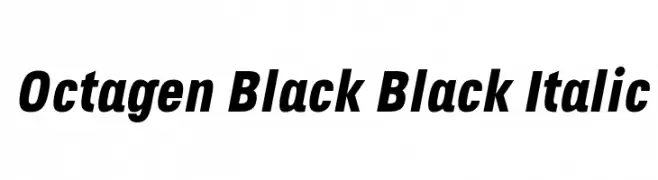
A playful and quirky font with circular dots integrated into each character.
A bold, playful font with rounded characters and unique dot details.
A playful, bubbly font with rounded characters and circular accents.
A playful, outlined font with bold, rounded characters.
A playful, rounded font with a hand-drawn, whimsical style.
A playful, bold typeface with rounded, smooth edges and a whimsical touch.
A playful, rounded font with smooth curves and a friendly appearance.
A bold, modern font with high contrast and geometric influences.
A bold, high-contrast font with angular serifs and smooth curves, perfect for striking headlines.
A bold, geometric font with characters enclosed in rounded squares, offering a modern and structured look.
A bold, geometric font with characters in rounded squares, evoking vintage typewriter keys.
A vintage typewriter-style font with a distressed, authentic appearance.
A bold, expressive handwritten font with dynamic brush strokes.
A modern, artistic font with geometric and organic elements.
A bold and elegant script font with fluid, dynamic strokes.
A bold, modern font with geometric curves and playful elements.
A charming and elegant script font with flowing, cursive letters and decorative flourishes.
A lively and flowing script font with a natural handwritten style.
An elegant cursive script font with flowing, connected letters.
A bold, italic sans-serif font with a dynamic and modern style.
A bold, expressive script font with elegant, flowing cursive letters.
A lively and elegant script font with flowing, cursive letterforms.
A modern sans-serif font with a clean and balanced design.
A delicate, handwritten font with thin, flowing lines and an elegant style.
An elegant and flowing script font with decorative swashes and loops.
An elegant, flowing script font with graceful curves and dynamic contrast.
An elegant, high-contrast cursive font with ornate details.
An elegant, flowing script font with smooth, cursive strokes.
A playful and bold font with rounded, whimsical letterforms.